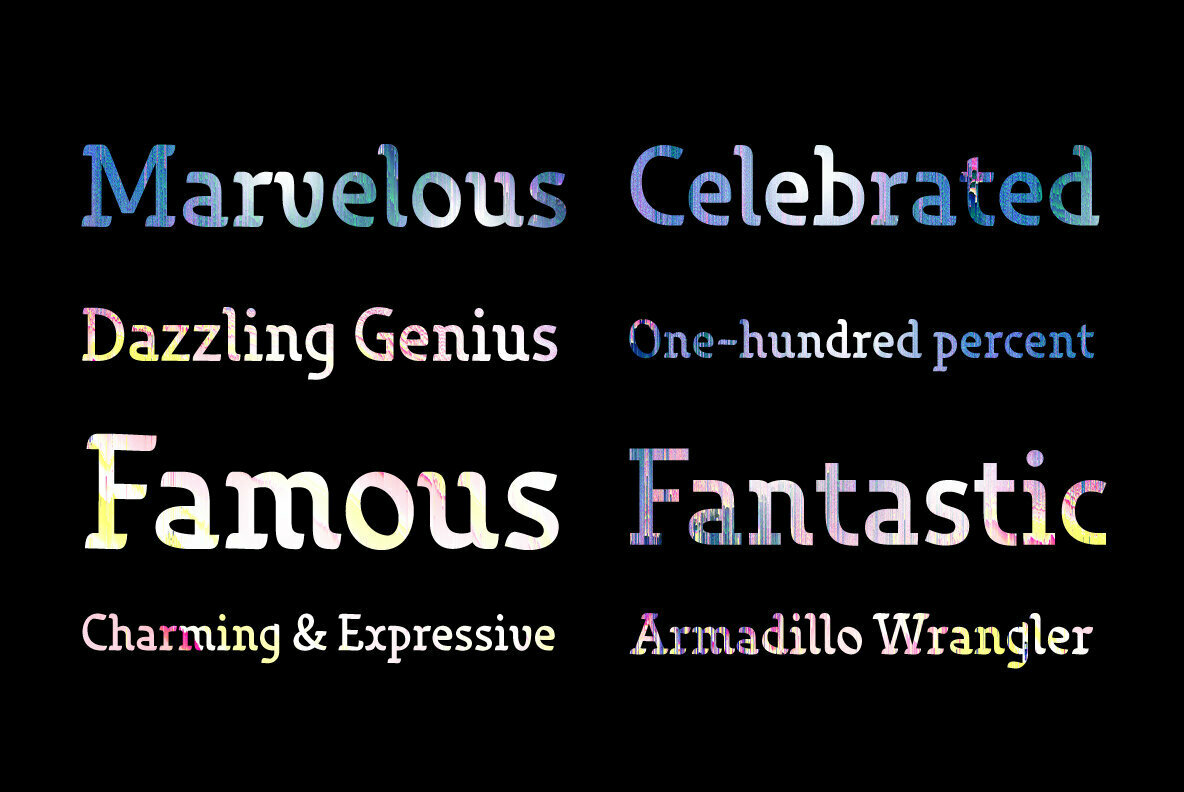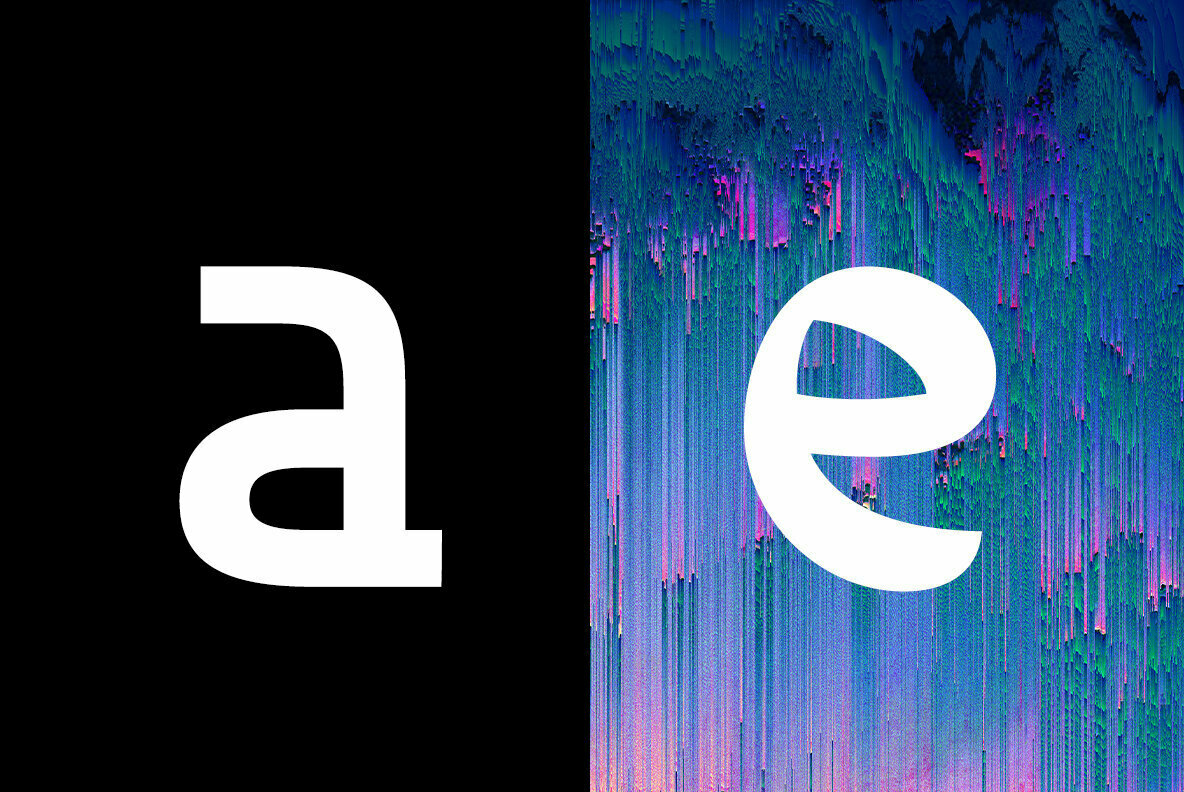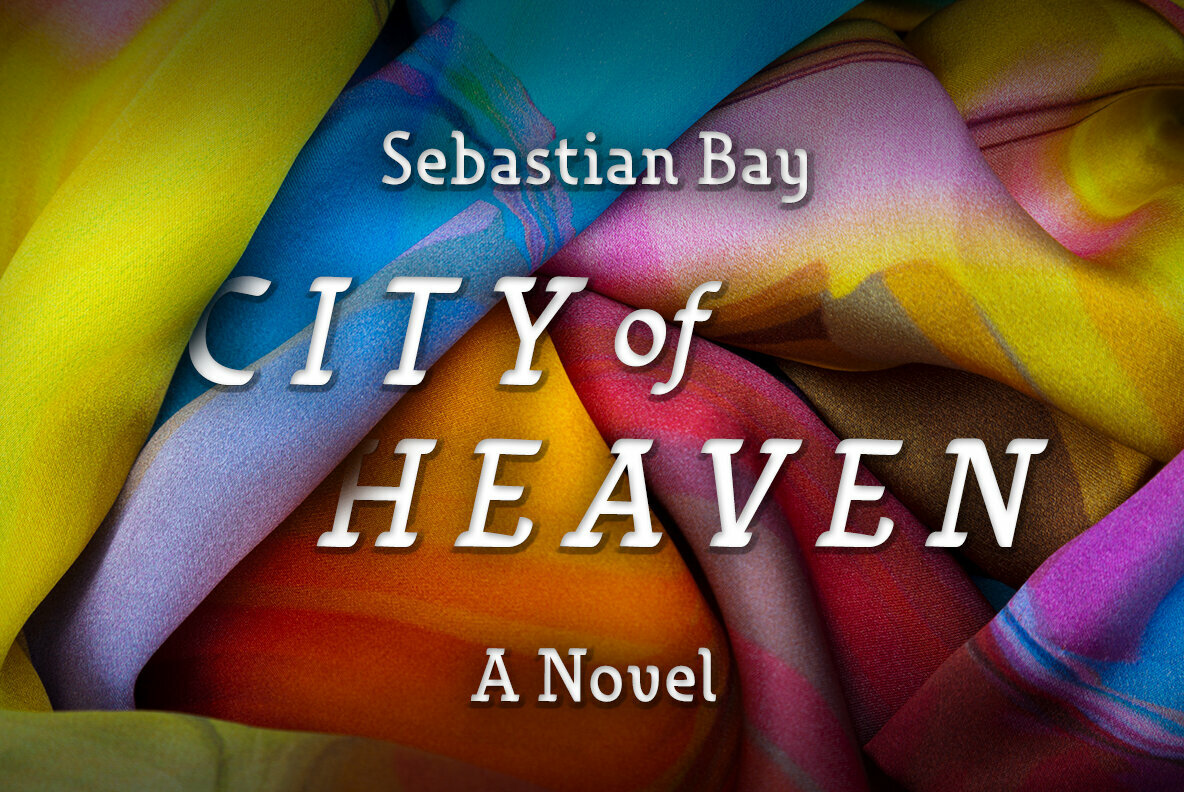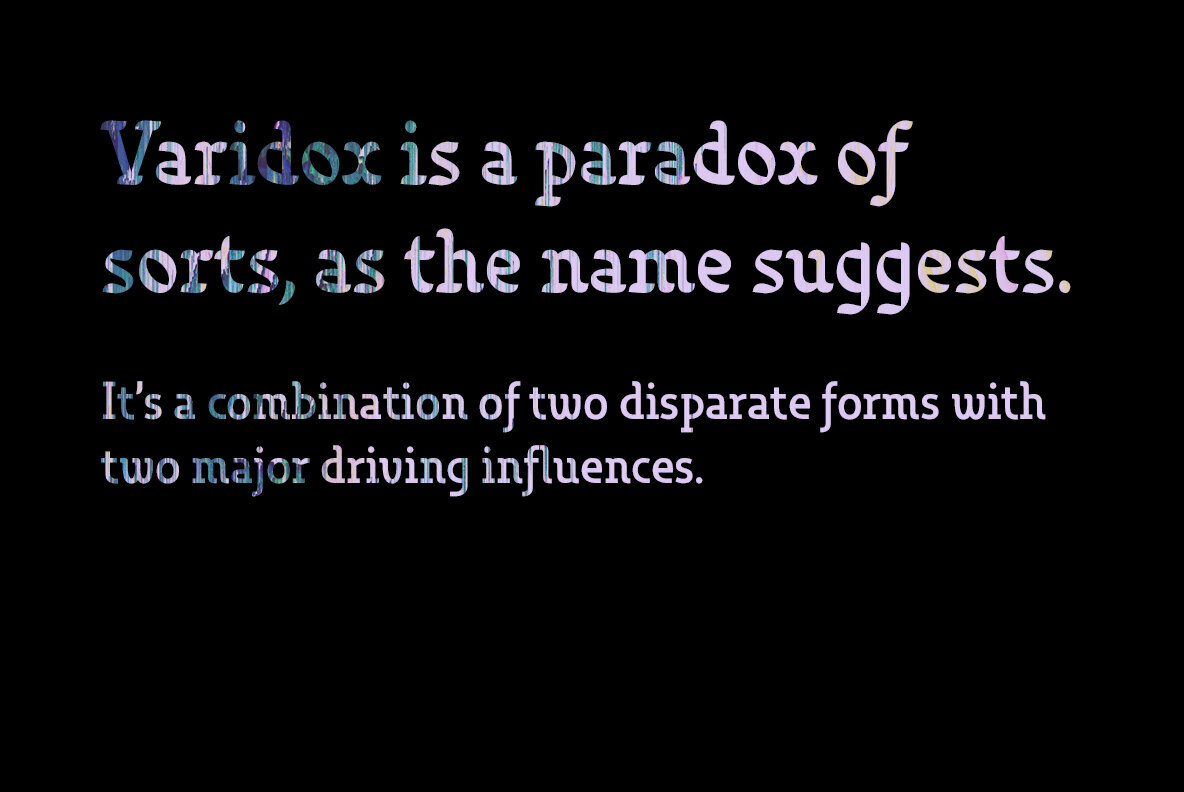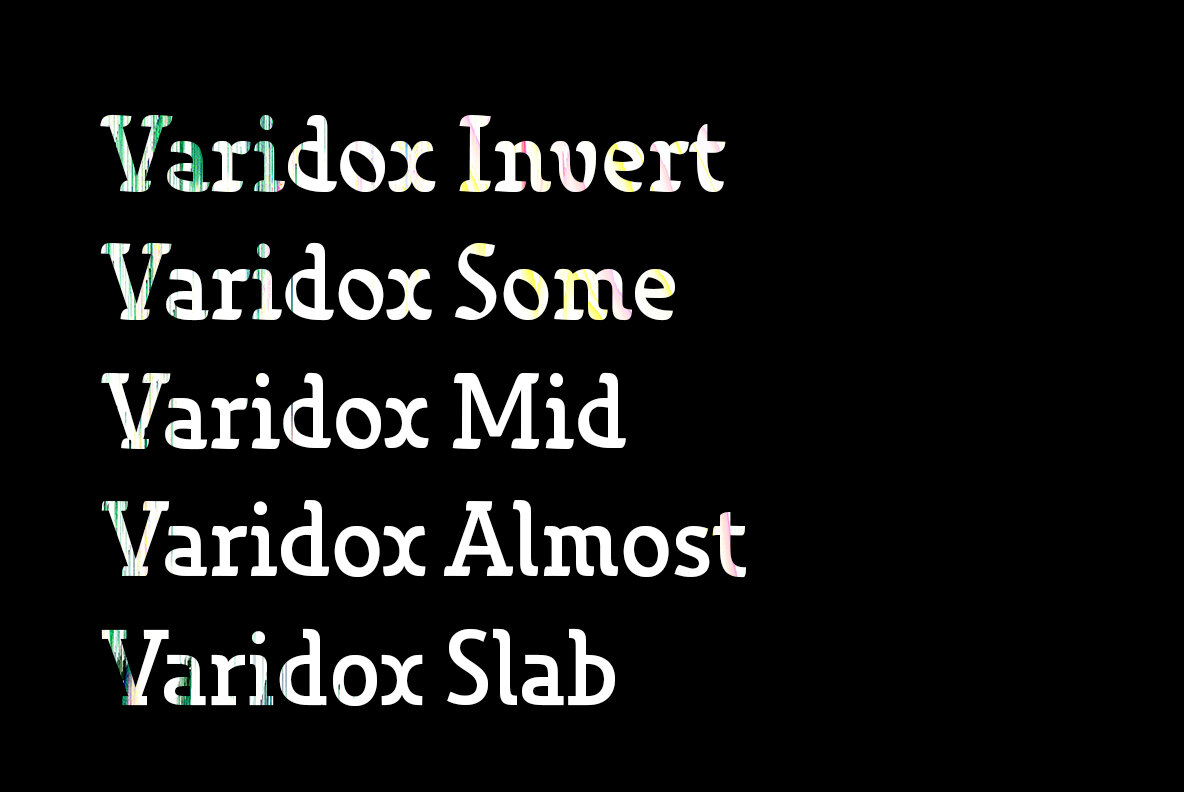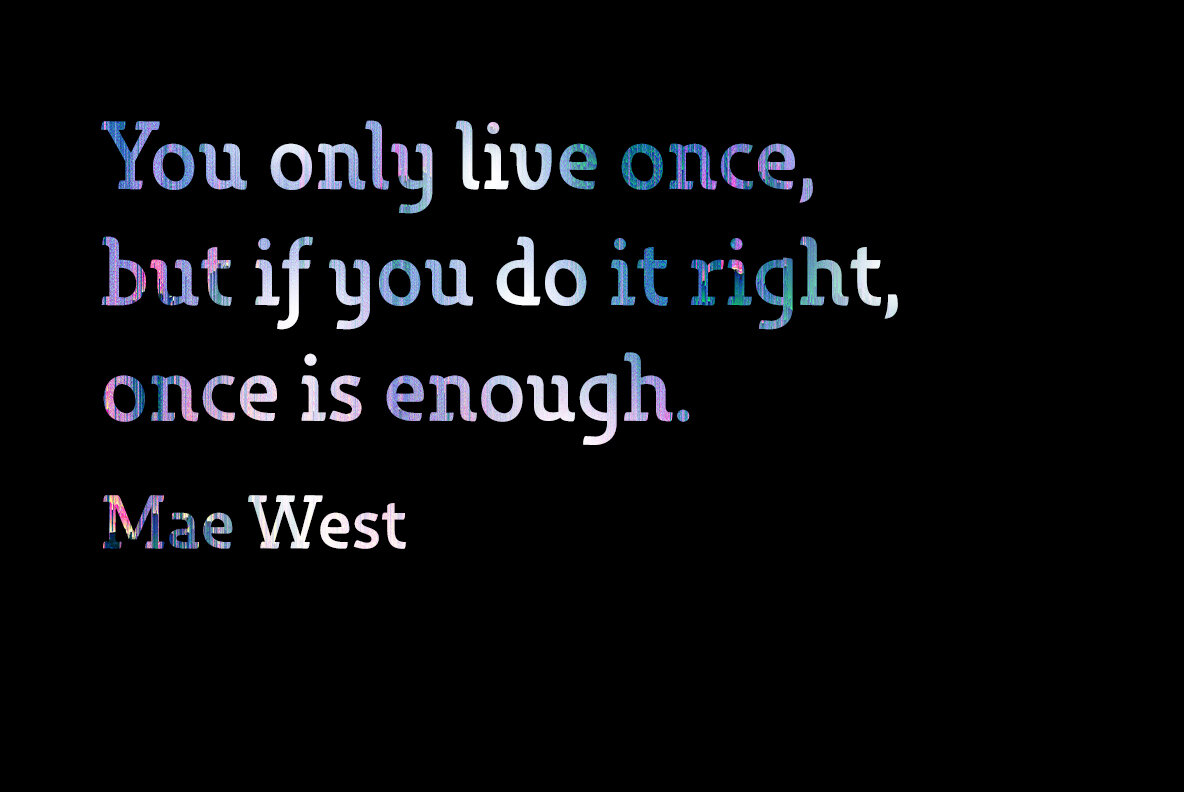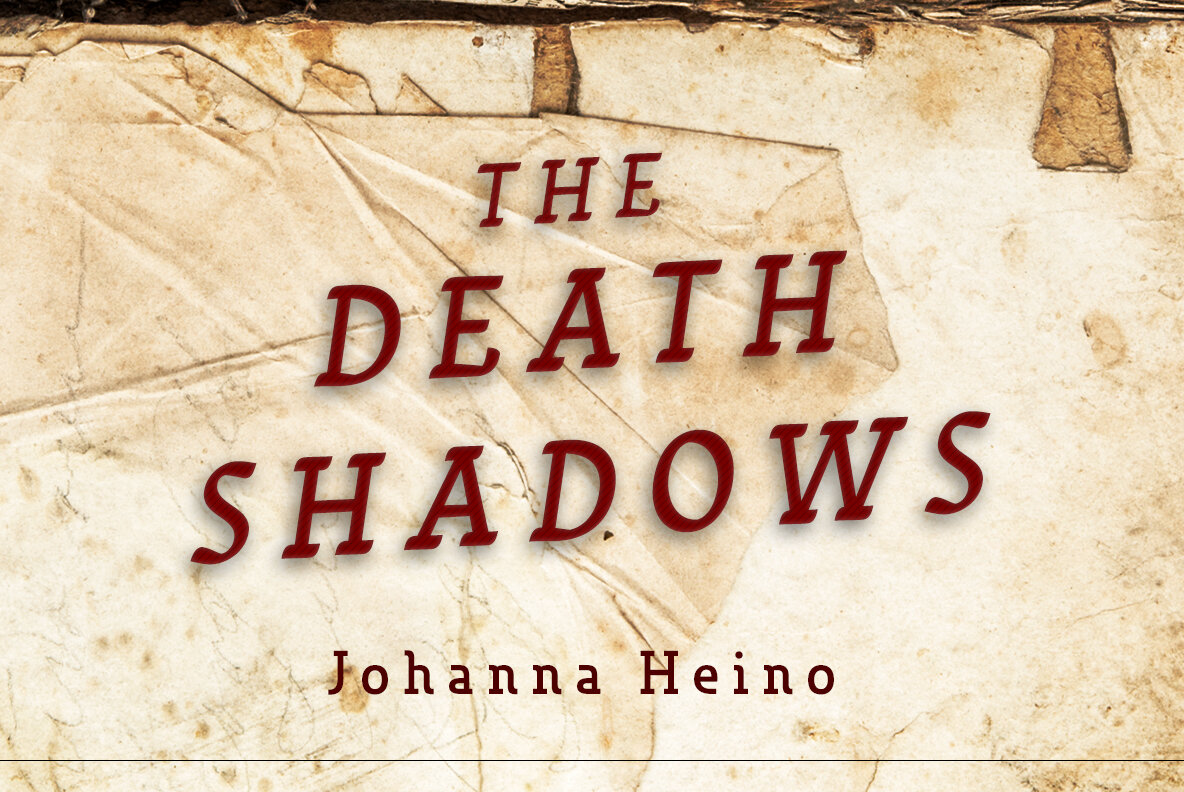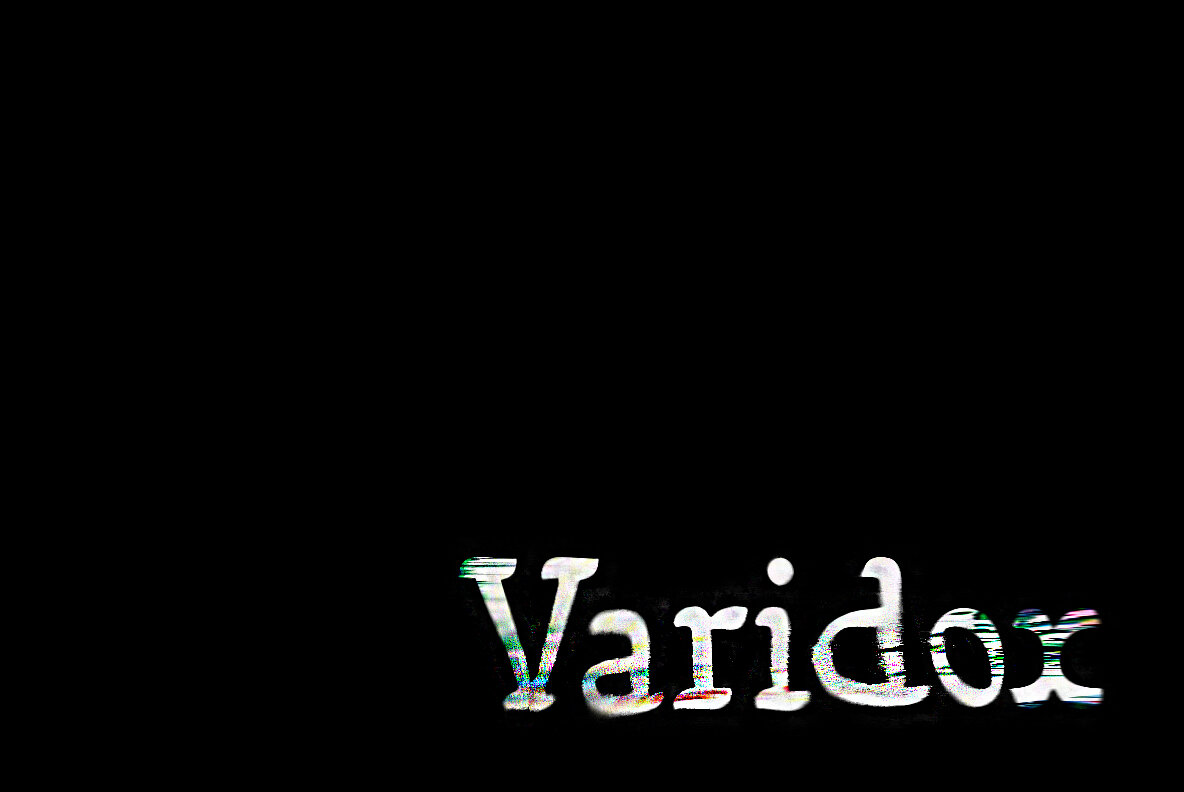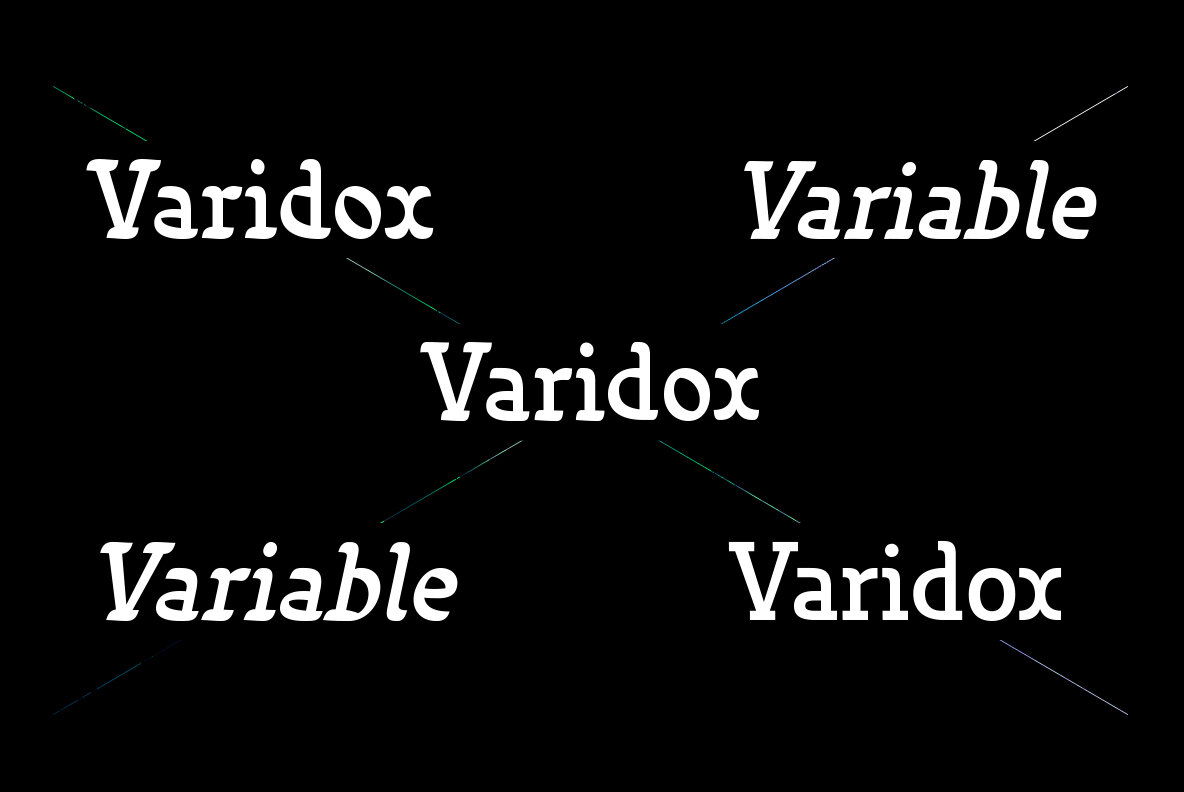
Varidox Font
"Varidox, a variable typeface design, allows users to connect with specific design combinations with slightly varied differences in style. These variations in design enable the user to reach a wider scope of audiences.
As the name suggests, Varidox is a paradox of sorts--that is, a combination of two disparate forms with two major driving influences. In the case of type design, the conflict lies in the age-old conundrum of artistic expression versus marketplace demand. Should the focus center primarily on functionality for the customer or err on the side of advancing creativity? If both are required, where does the proper balance lie?
Viewed as an art, type design selections are often guided by the pulse of the industry, usually emphasizing unique and contemporary shapes. Critics are often leading indicators of where the marketplace will move. Currently, many design mavens have an eye favoring reverse stress. However, these forms have largely failed to penetrate the marketplace, another major driving factor influencing the font world. Clients now (as well as presumably for the foreseeable future) demand the more conservative forms of monoline sans serifs. Typeface designers are left with a predicament.
Variable typefaces hand a great deal of creative control to the consumers of type. The demands of type design critics, personal influences of the typeface designer and the demands of the marketplace can all now be inserted into a single font and adjusted to best suit the end user. Varidox tries to blend the extremes of critical feature demands and the bleeding edge of fashionable type with perceptive usability on a scalable spectrum. The consumer of the typeface can choose a number between one and one-thousand. Using a more conservative style would mean staying between zero and five hundred, while gradually moving higher toward one thousand at the high end of the spectrum would produce increasingly contemporary results.
Essentially, variable fonts offer the ability to satisfy the needs of the many versus the needs of the few along an axis with a thousand articulations, stabilizing this delicate balance with a single number that represents a specific form between the two masters, a form specifically targeted towards the end user. Practically, a user in some cases may wish to use more conservative slab form of Varidox for a more conservative clientele. Alternatively, the same user may then choose an intermediate instance much closer to the other extreme in order to make a more emphatic statement with a non-traditional form.
Parametric type offers a new options for both designers and the end users of type. In the future, type will be able to morph to target the reader, based on factors including demographics, mood or cultural influences. In the future, the ability to adjust parameters will be common. With Varidox, the level of experimentality can be gauged and then entered into the typeface. In the future, machine learning, for example, could determine the mood of an individual, their level of experimentality or their interest and then adjust the typeface to meet these calculated parameters. This ability to customize and tailor the experience exists for both for the designer and the reader. With the advent of new marketing technologies, typefaces could adjust themselves on web pages to target consumers and their desires. A large conglomerate brand could shift and adapt to appeal to a specific target customer. A typeface facing a consumer would be more friendly and approachable, whereas a typeface facing a business to business (B2B) customer would be more businesslike in its appearance. Through both experience, however, the type would still be recognizable as belonging to the conglomerate brand.
The font industry has only begun to realize such potential of variable fonts beyond simple visual appearance. As variable font continues to target the user, the technology will continue to reveal new capabilities, which allow identities and layouts to adjust to the ultimate user of type: the reader."